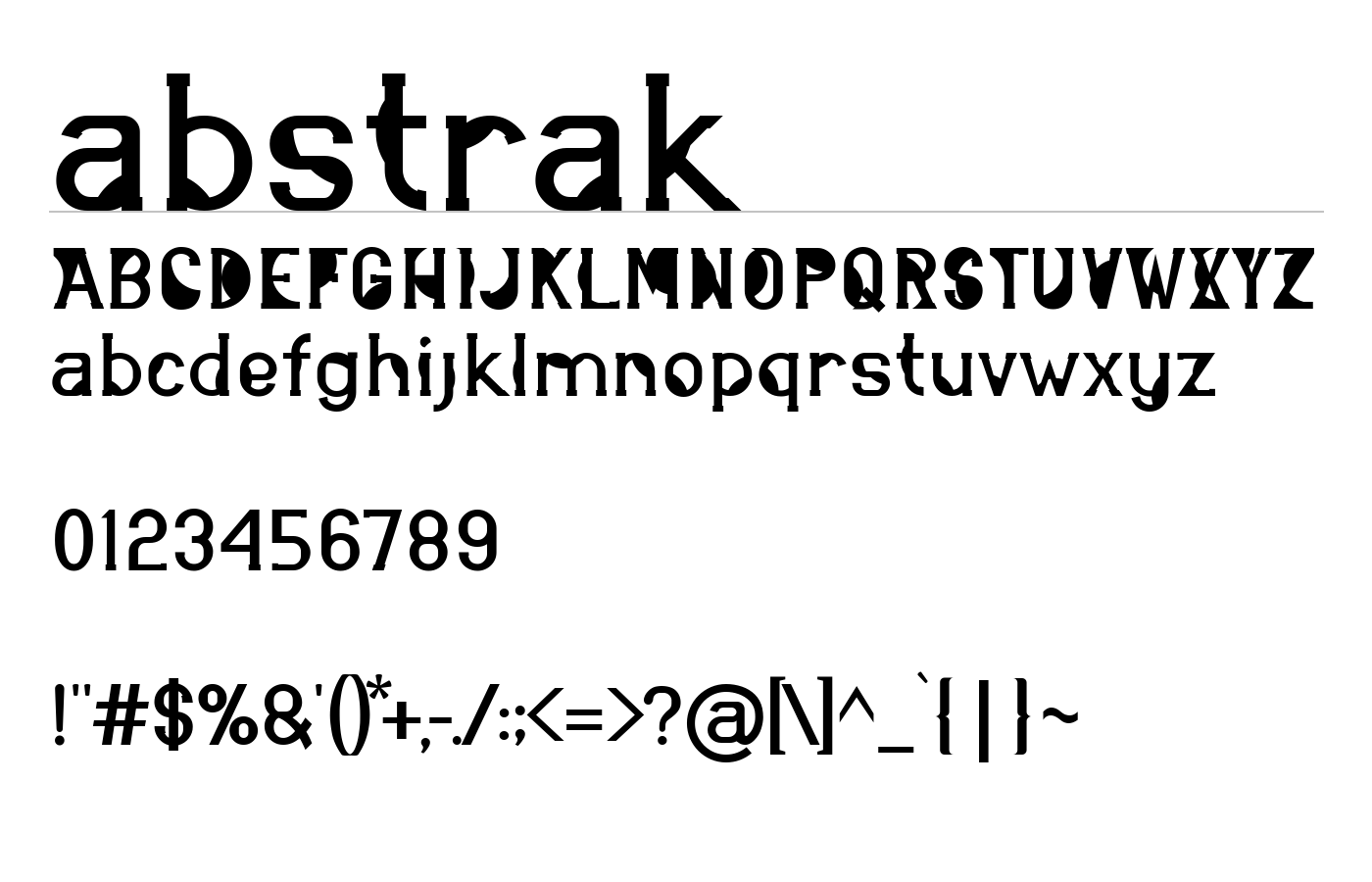
Abstrak is a distinctive slab serif font that blends playful geometric shapes with strong, bold strokes, creating a modern yet slightly vintage feel. Its high contrast between thick and thin elements, combined with unusual letterforms and quirky details, makes it perfect for eye-catching headlines, logo design, and creative branding projects where a unique, artistic impression is desired. This font works best when you want to convey originality and a dynamic, engaging style.
abstrak Font
About abstrak Font
| Designer | Indra Gunawan |